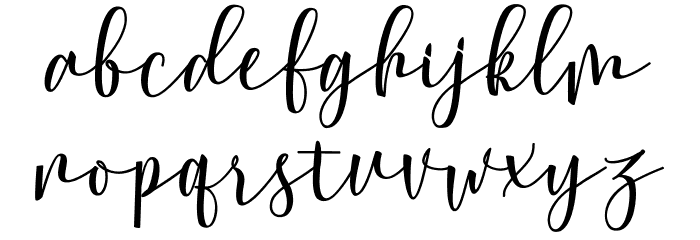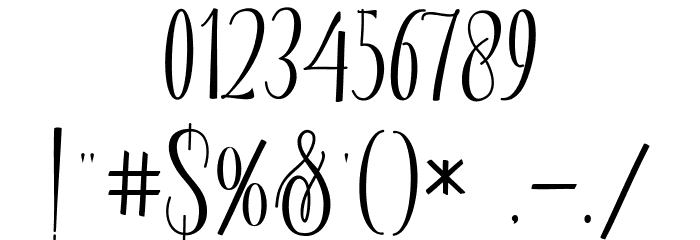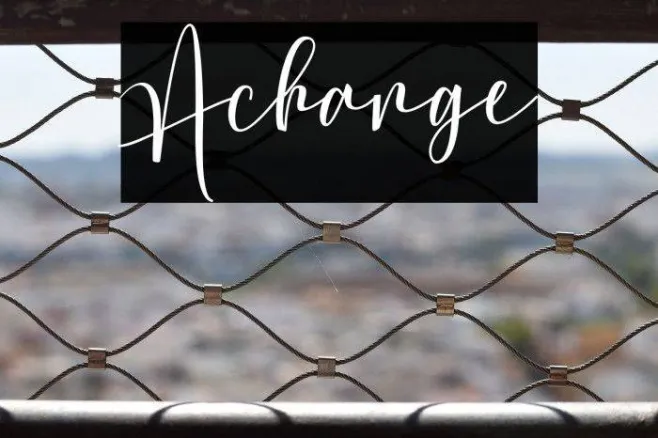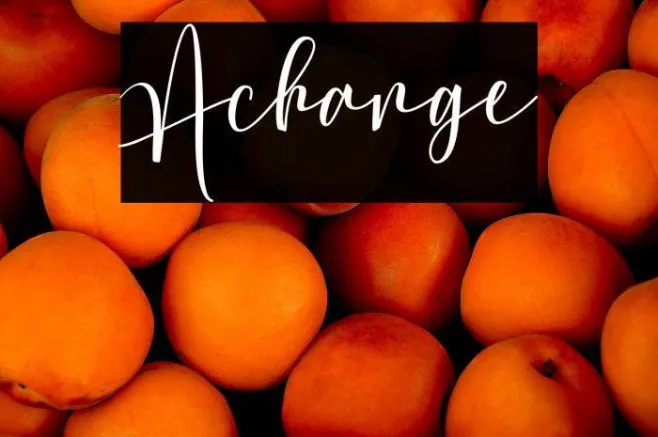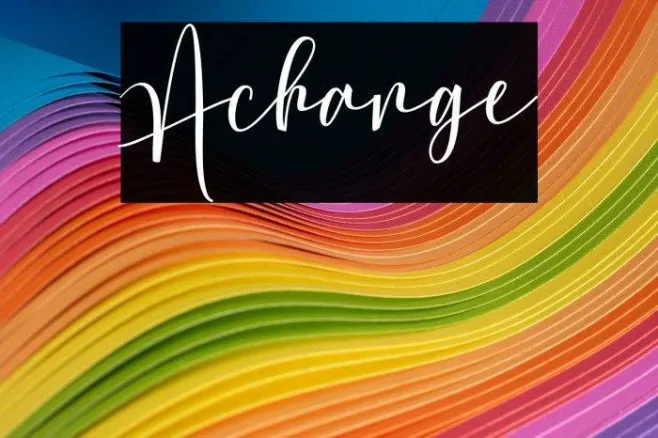
Achange Font
This elegant script font features a flowing, handwritten style with a modern twist. The uppercase letters are characterized by their graceful, sweeping lines and delicate curves, while the lowercase letters maintain a consistent fluidity and charm. The numerals are stylishly integrated, maintaining the font's overall aesthetic. Special characters are thoughtfully designed to complement the script's sophisticated appearance. The font's thin strokes and occasional flourishes add a touch of elegance, making it suitable for a variety of creative projects.
A modern, elegant script font with flowing, handwritten characteristics.
- Font: Achange
- Proposed Projects: Ideal for wedding invitations, greeting cards, branding, and elegant packaging designs.
- Category: Script
- Use Case: Logos, Invitations, Decorative text